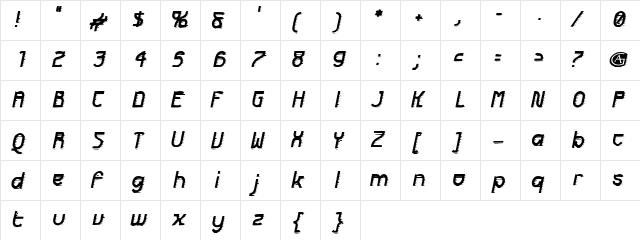
Futurex Engraved Regular
Design Context for Futurex Engraved Typeface
Futurex Engraved has a distinctly futuristic character, with geometric precision and clean angles that feel at home in technology, gaming, and sci-fi contexts.
Pro Tip: Use Futurex Engraved in combination with a neutral sans for body text. Let it define the brand voice in headlines while keeping reading comfortable elsewhere.